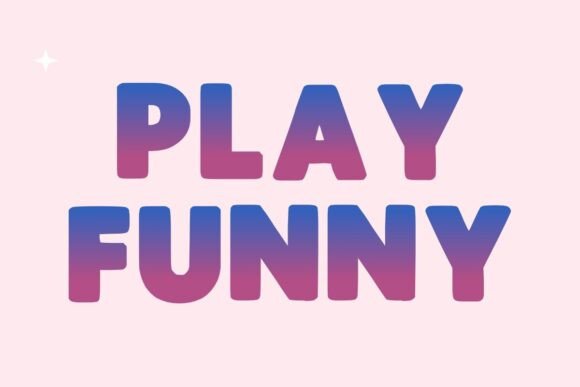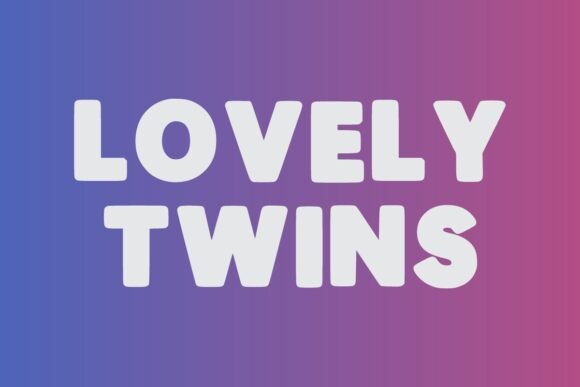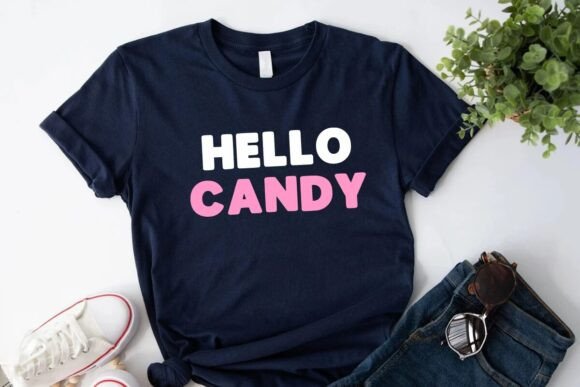
Introduction to Hello Candy Font
Hello Candy is a charming and cute bold font that exudes playfulness.
Its soft curves and bold appearance are perfect for creating eye-catching headlines, posters, social media graphics, and branding Add a dreamy touch to your designs with this delightful font that’s both fun and versatile.